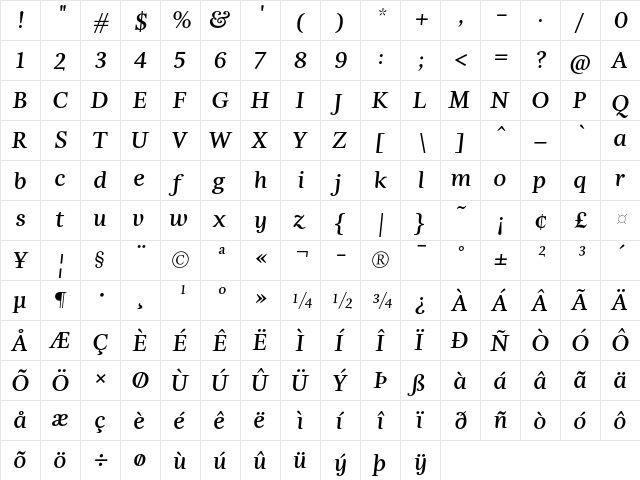
EstaPro Bold Italic
| Foundry | Dino dos Santos _DSType |
| Designer | Dino dos Santos |
Design Context for EstaPro Typeface
EstaPro takes a measured approach to typography — its balanced proportions and neutral character make it a reliable workhorse for both digital and print work. The slanted form adds forward momentum and visual energy. The heavy weight commands attention and anchors typographic hierarchies.
Pro Tip: Use EstaPro for emphasis, pull quotes, and subheadings where its slanted energy can add rhythm to the layout.